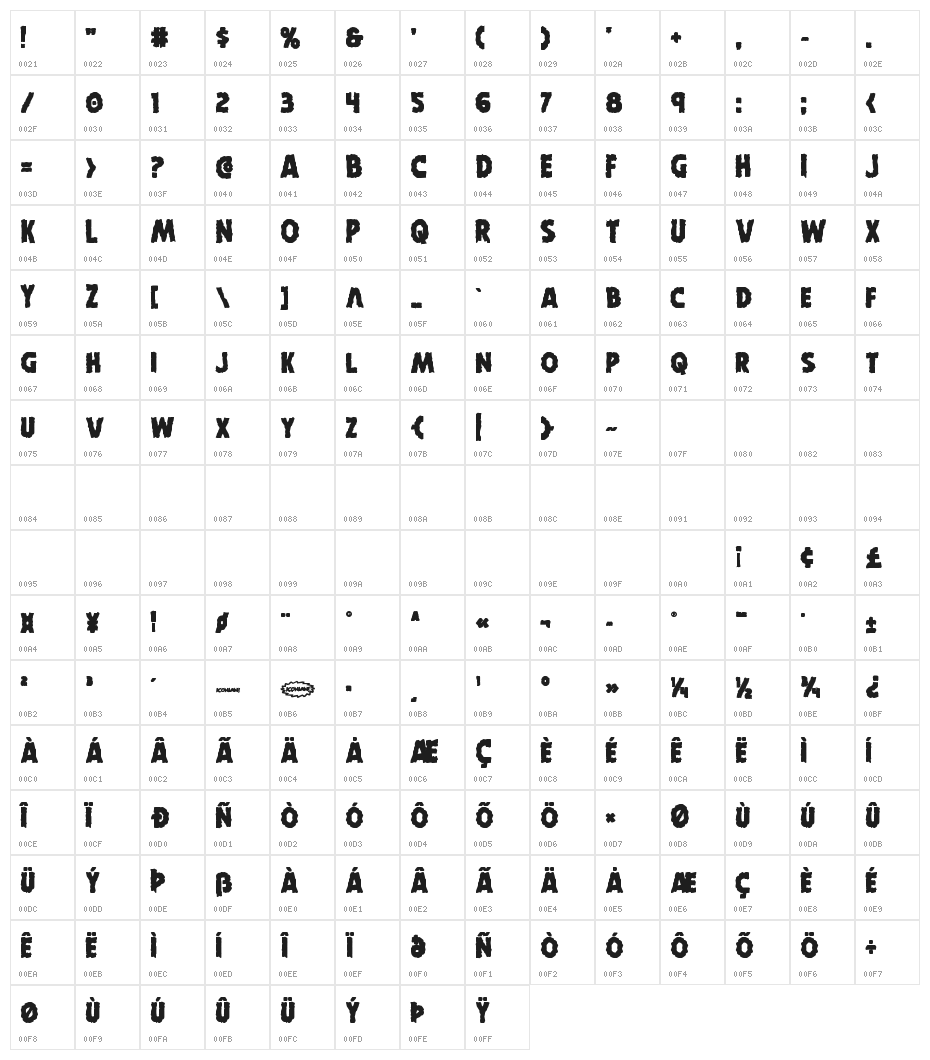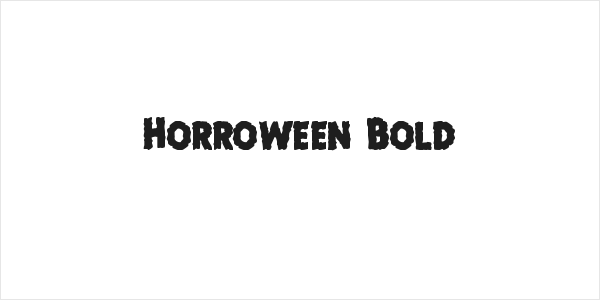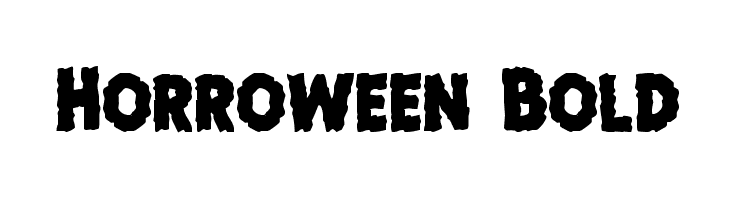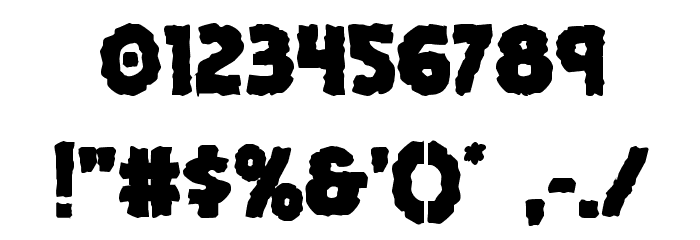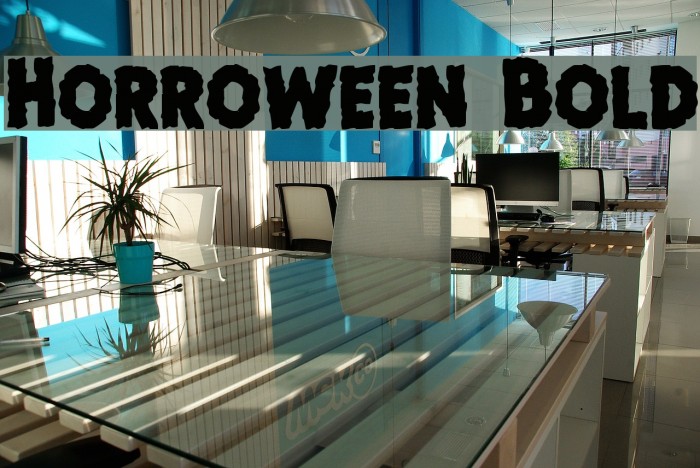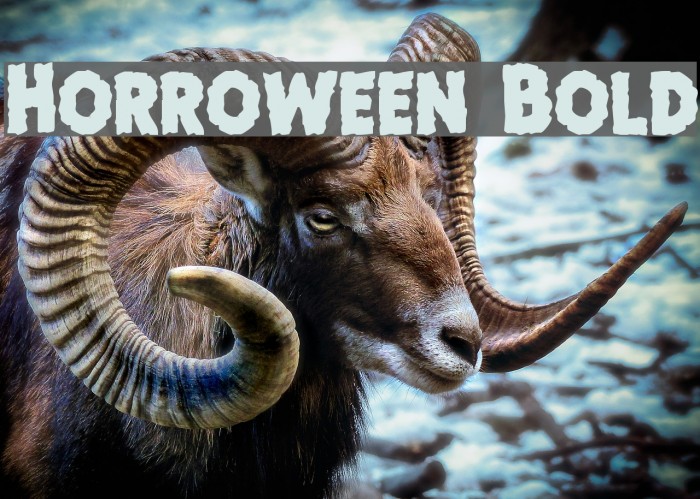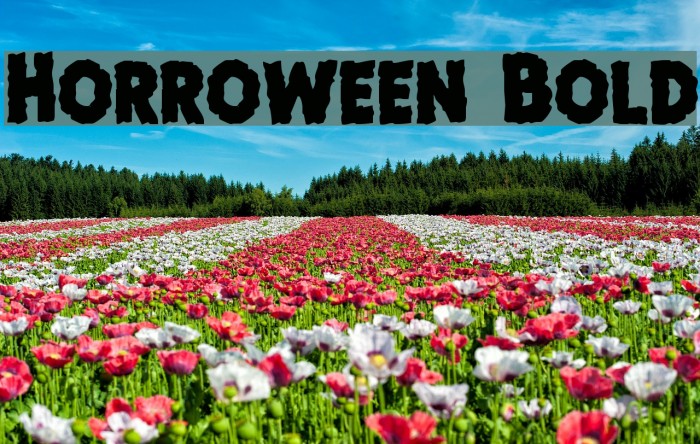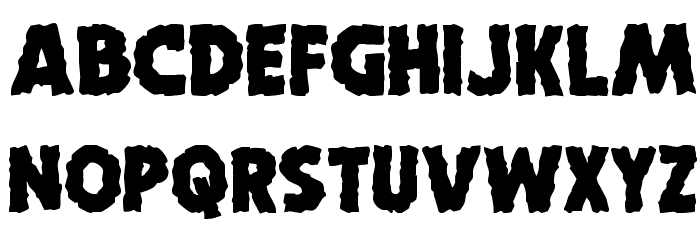
Horroween Bold Font
Horroween Bold Description
This font features a bold, rugged design with a distressed texture that evokes a spooky, Halloween-inspired aesthetic. The characters are thick and uneven, giving them a hand-carved appearance, reminiscent of letters etched into stone or wood. The uppercase and lowercase letters maintain a consistent style, with jagged edges and irregular shapes that enhance the eerie feel. Numbers and special characters are similarly styled, ensuring a cohesive look across all text elements. This font is ideal for creating a dramatic and unsettling atmosphere in any design project.
| Proposed Projects | Perfect for Halloween-themed posters, party invitations, horror movie titles, haunted house signage, and spooky event branding. |